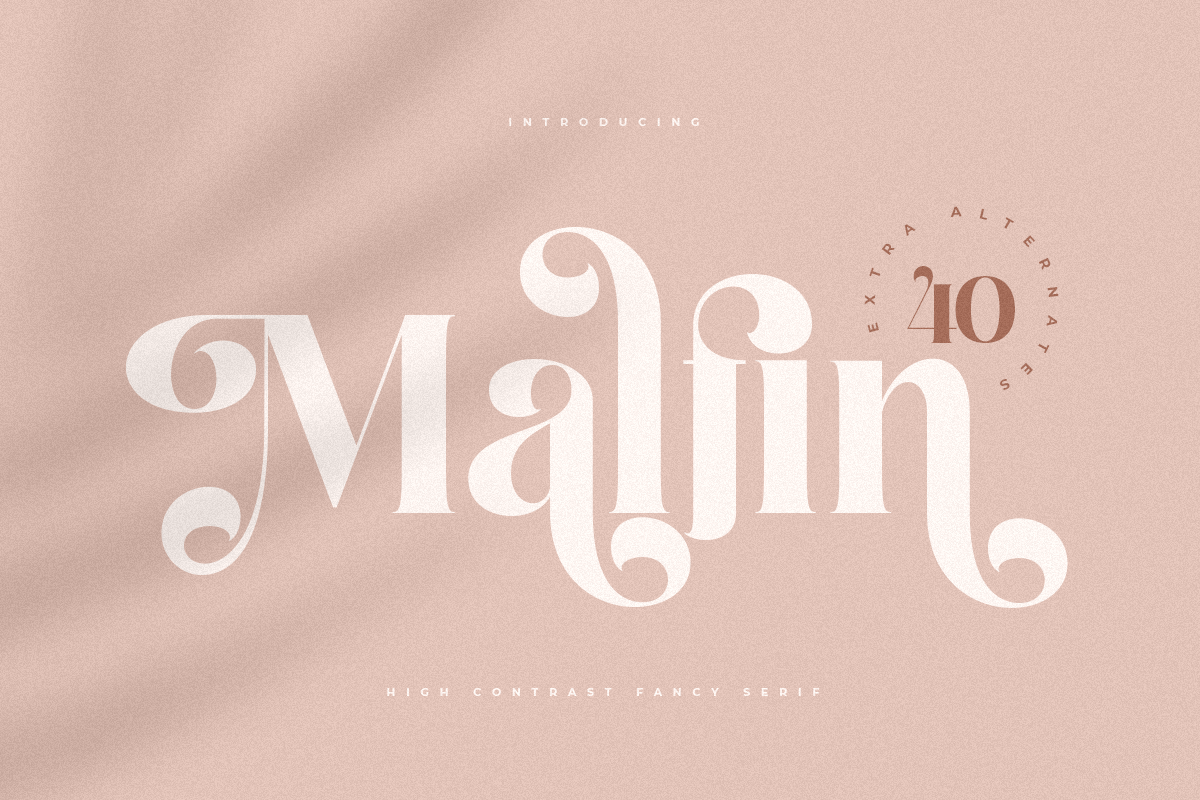
Malfin
-Love Luxury Cursive Serif
Malfin
A Luxury Cursive Serif font that special for show the display or headline with love and fancy style will be ready to add value of your brand. It so nice to leverage designer or product owner that need solutions to make their design look more stylish and modern. And specially for Malfin font, We prepared any characters to help you create unlimited variations for your creative needs.